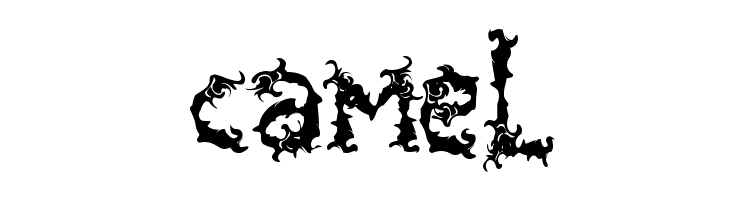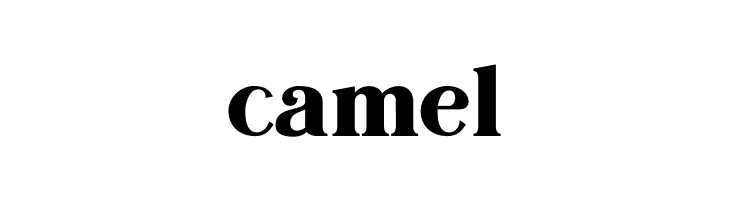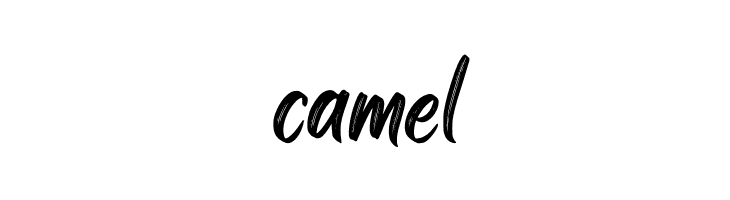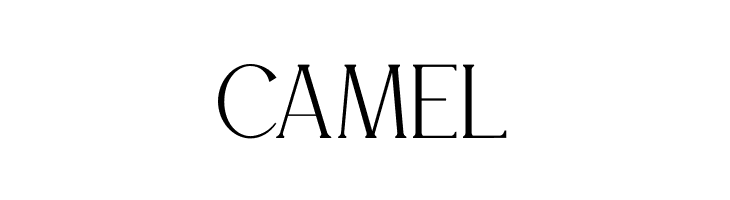
A festive and elegant cursive font with decorative swirls, perfect for holiday themes.
A festive, cursive font with elegant loops and swirls, perfect for holiday themes.
A stylish and elegant script font with flowing, connected letterforms.
A graceful script font with flowing, connected strokes and elegant swashes.
A flowing, elegant script font with a natural handwritten style.
A fiery, flame-embellished font perfect for spooky, dramatic designs.
A flowing, cursive font with elegant loops and a handwritten style.
A bold serif font with strong strokes and pronounced serifs, offering a classic yet modern look.
A bold, brush script font with an energetic and dynamic style.
An elegant, high-contrast serif font with tall, slender letterforms.